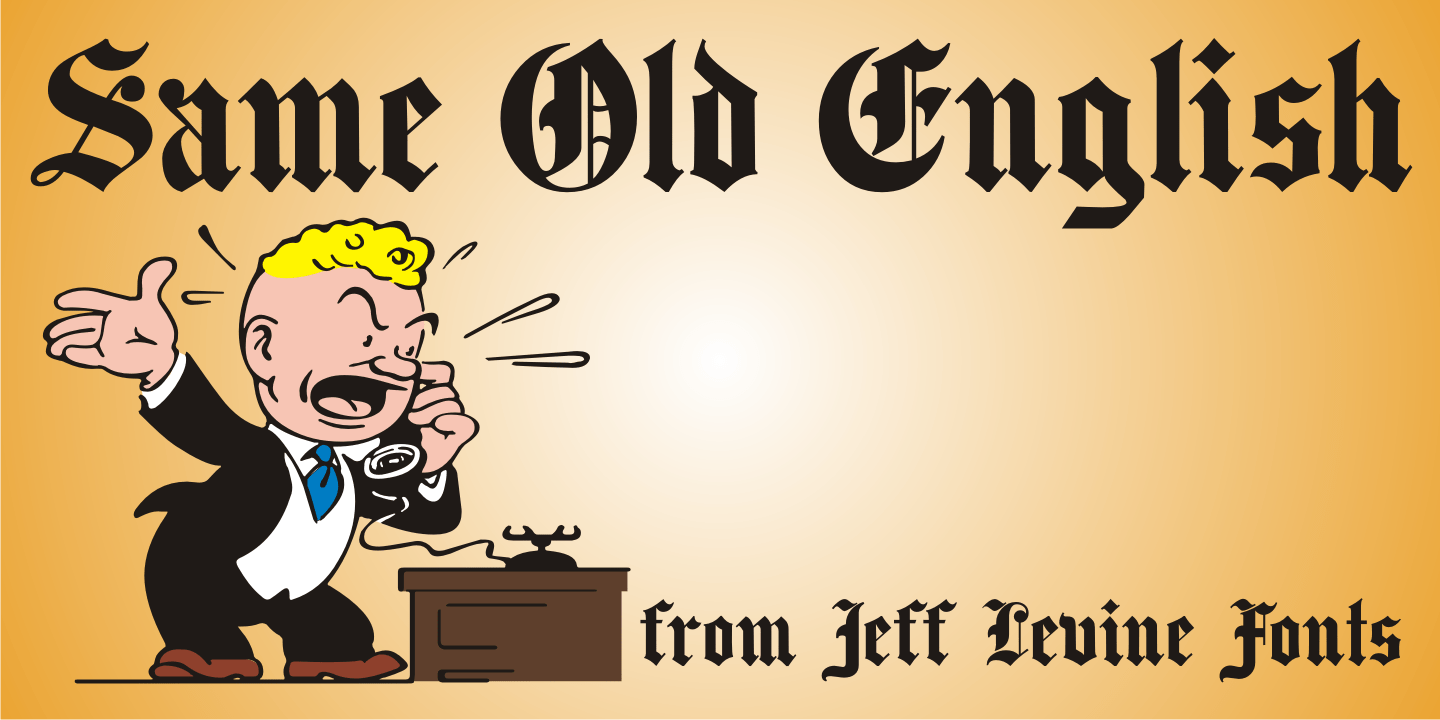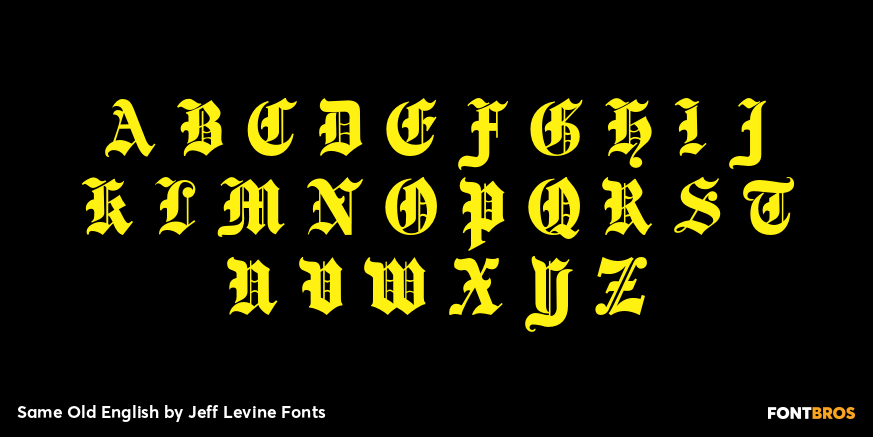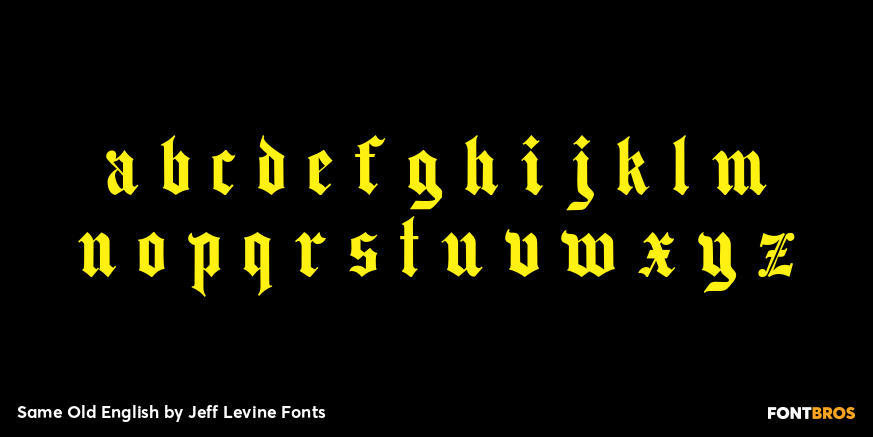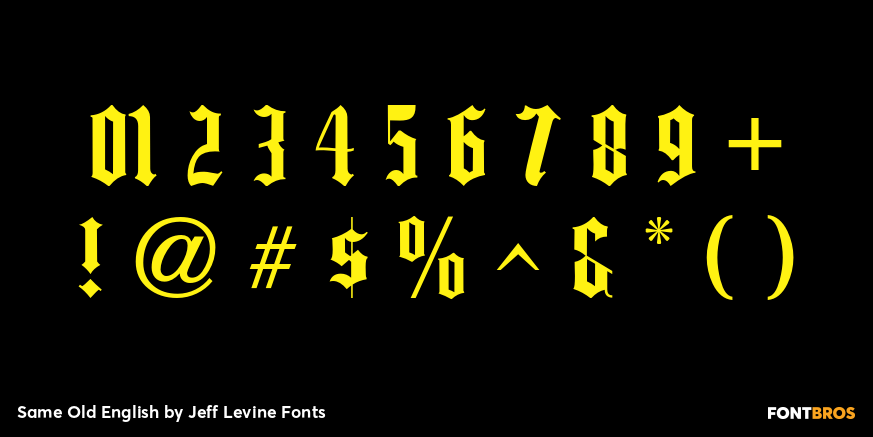
Same Old English
Same Old English JNL is your basic, everyday Old English text font with one small difference – it more resembles a hand-lettered typeface complete with tiny inconsistencies than it does the 'perfect' versions found in printer's type.